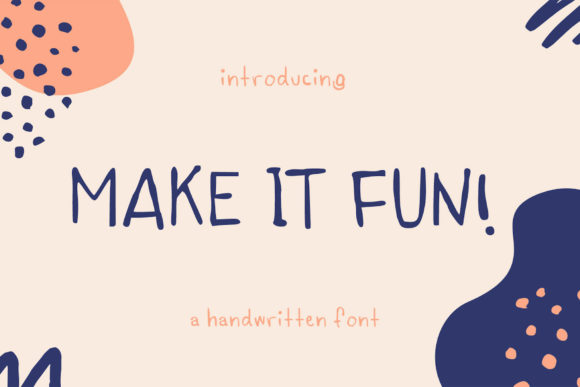
Make It Fun: A Handwritten Font for Creative Expression
Where Make It Fun Shines
- Blog headers and article titles
- Magazine covers and editorial features
- Ebook titles and chapter openers
- Newsletter graphics and pull quotes
- Printable planners and worksheets
- Wedding guides and creative templates